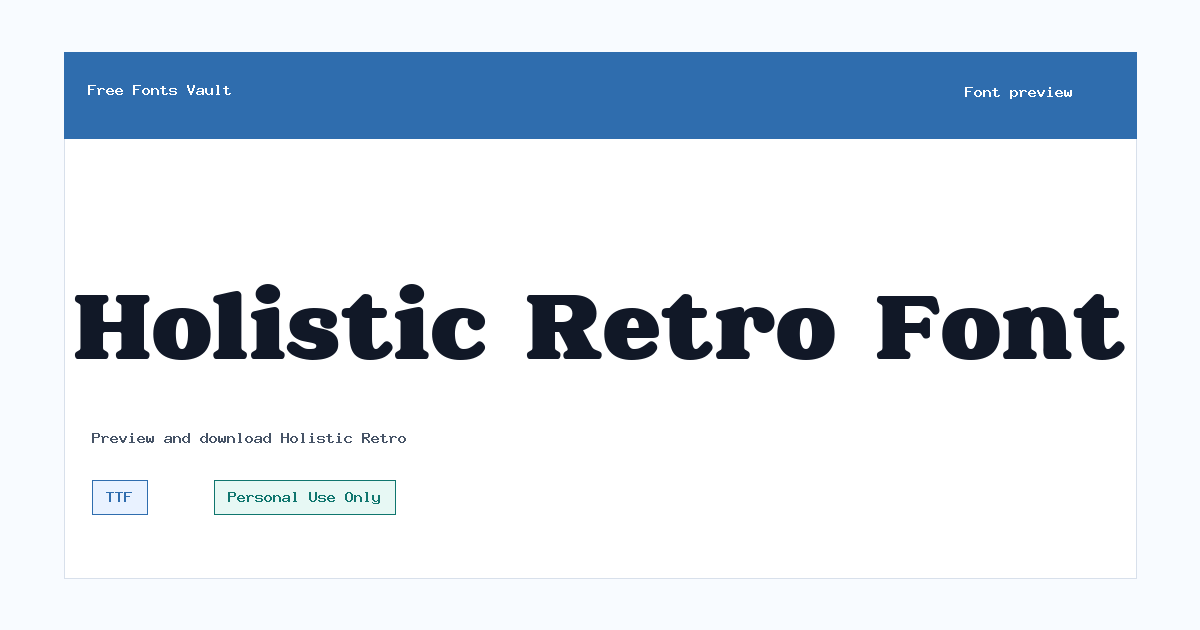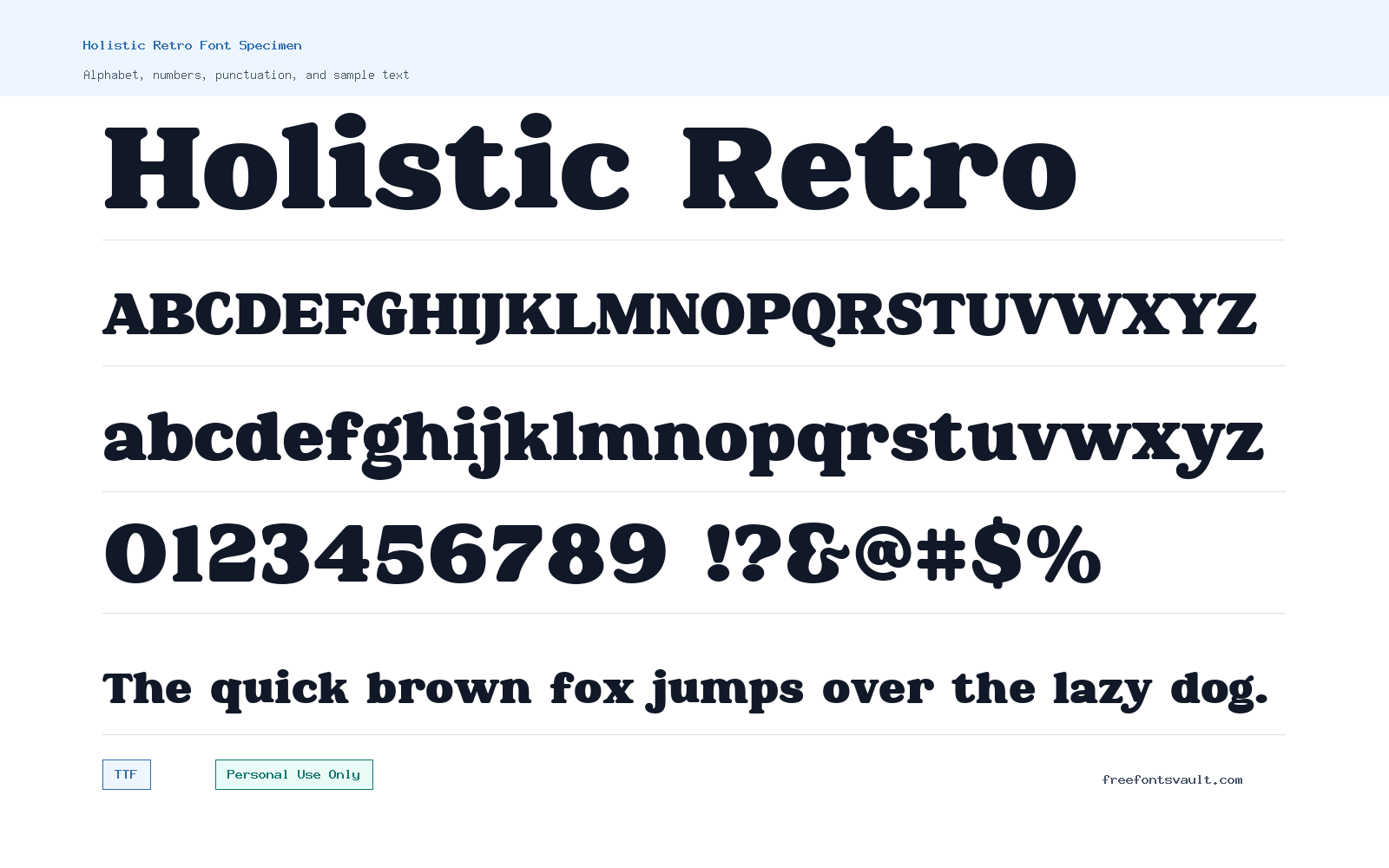
Holistic Retro
- Designer Aswangga
- Foundry Salamahtype
Holistic Retro font.
Holistic Retro is a serif display font with a nostalgic feel, made for readers who want a warm vintage look in short pieces of text.
About Holistic Retro
Holistic Retro works best when it has room to show its shape. The font has a retro serif character, so it is a good choice to test for headlines, logo drafts, poster titles, packaging mockups, social graphics, and decorative name treatments. Because the download is a demo-style TTF file, it is most useful for previewing the look, planning a personal project, or checking how the letters behave before you decide whether it fits your design.
Use the preview box to try the exact words you plan to design with, not only the default sample text. Retro serif fonts can look strong in short titles but may feel busy in long paragraphs, so test it at several sizes. Try uppercase words, mixed-case headlines, numbers, and common punctuation. If your design needs body copy, pair Holistic Retro with a plain sans serif or a quiet text serif so the display lettering remains the main visual element.
- Retro serif style suited to display typography and short text
- Useful for headlines, labels, title graphics, and personal design mockups
- Best paired with a simpler companion font for longer supporting text
- Vintage-style poster titles
- Logo drafts and personal branding mockups
- Packaging or label concepts
- Social media quote graphics
- Short website or blog headers
- Invitation and event title designs
The font is credited to Aswangga, with Salamahtype listed as the foundry.
For the cleanest result, use Holistic Retro in short lines where the letter shapes can stand out. Avoid setting long paragraphs in it, and check spacing carefully in words with narrow letters, wide capitals, or repeated characters. If you plan to print a design, test it at the final size before committing.
What kind of projects does Holistic Retro suit?
It is best for short display text such as titles, labels, logo experiments, poster headings, and social graphics. It is not the safest choice for long reading text.
Who designed Holistic Retro?
Holistic Retro is credited to Aswangga, with Salamahtype listed as the foundry.